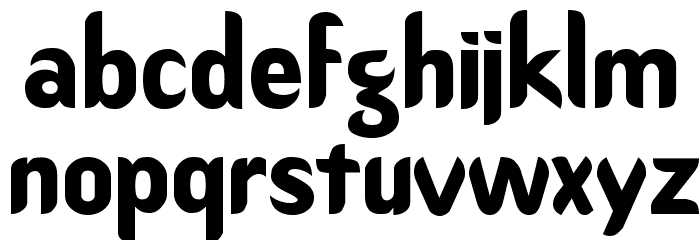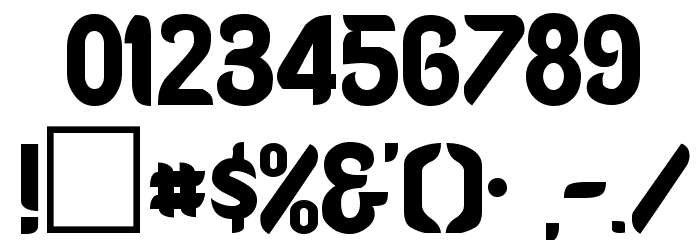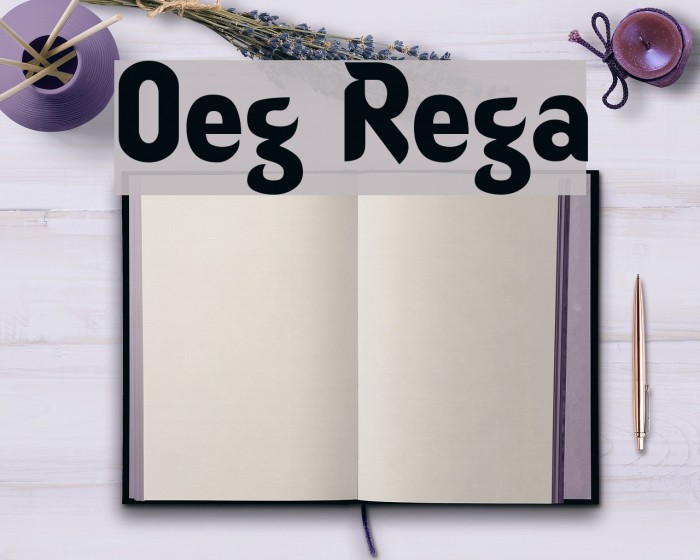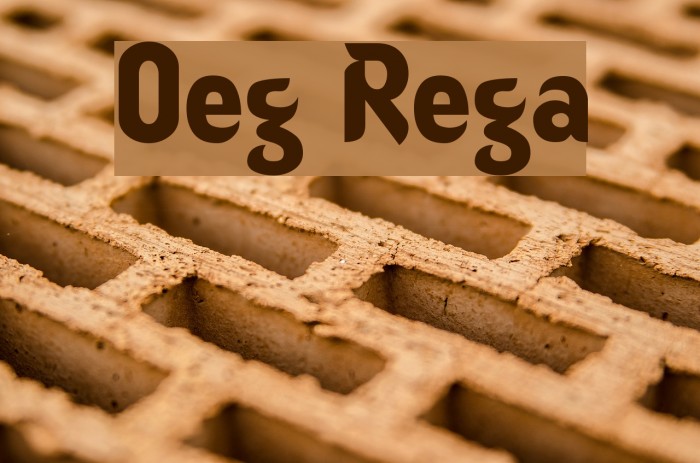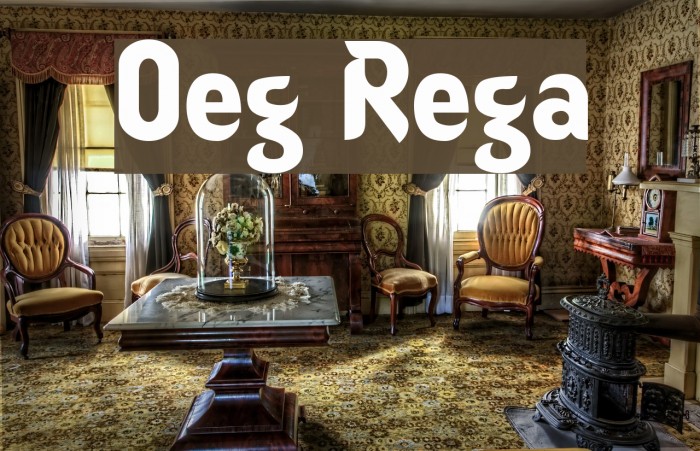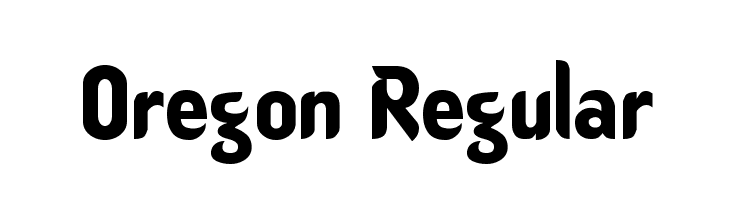
Oregon Regular Font
This font features bold, rounded characters with a strong presence, making it ideal for attention-grabbing designs. The uppercase letters are robust and slightly condensed, while the lowercase letters maintain a consistent weight, enhancing readability. The numerals are clear and distinct, matching the overall boldness of the alphabet. Special characters are well-integrated, providing versatility for various design needs. The font's style is modern and slightly playful, suitable for a wide range of creative projects.
A bold, rounded font with a modern and playful style.
- Proposed Projects: Ideal for branding, posters, headlines, and advertising materials.